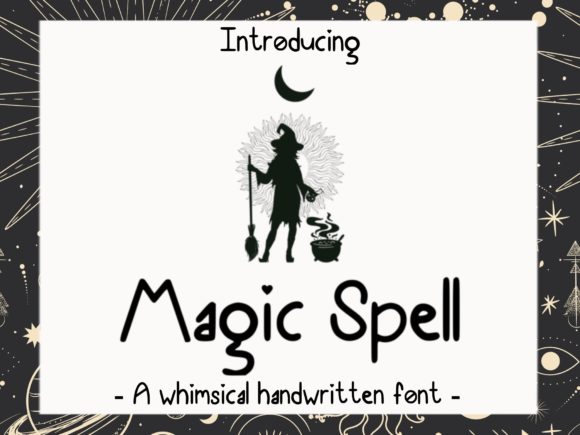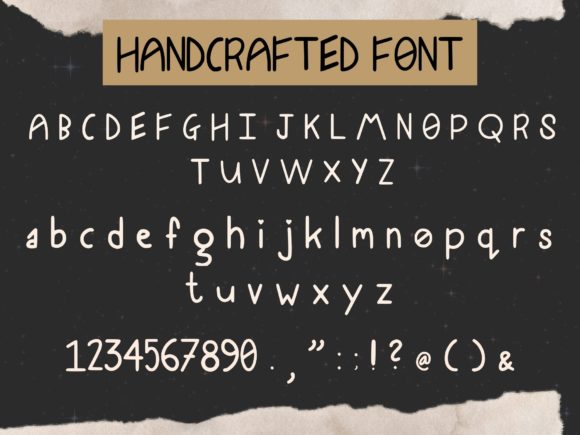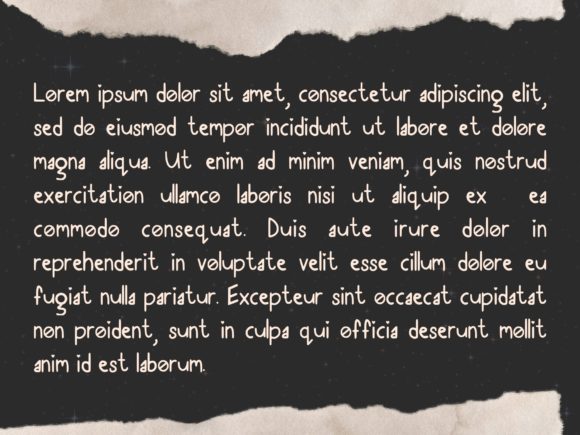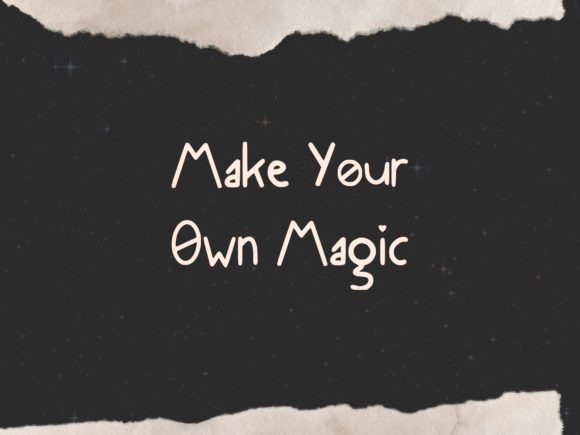
Magical Spell Font
About Magical Spell Font
Magical Spell font casts a spell of enchantment with its captivating script font, infusing every project with a touch of whimsy and charm. Crafted with meticulous care and attention to detail, this font is a versatile addition to any designer’s toolkit, capable of transforming ordinary creations into extraordinary works of art.
At the heart of Magical Spell font lies its mesmerizing script style, characterized by graceful curves and flowing lines. Each letter is imbued with a sense of magic and wonder, inviting viewers into a world of imagination and creativity. From branding and advertising to invitations and social media graphics, this font has the power to captivate audiences and leave a lasting impression.
One of the most enchanting aspects of Magical Spell font is its ability to evoke a sense of playfulness and joy. Its whimsical script style adds a touch of personality to any project, infusing it with a sense of wonder and delight. Whether used for a children’s book, a themed event, or a playful logo, this font brings a sense of magic to every design it touches.
In branding and marketing endeavors, Magical Spell font shines as a beacon of creativity and originality. Its captivating script style adds a unique flair to logos, packaging, and promotional materials, helping brands stand out in a crowded marketplace and leaving a lasting impression on consumers.
For special events such as birthday parties or themed celebrations, Magical Spell font adds an extra layer of charm to invitations, banners, and decorations. Its whimsical aesthetic sets the perfect tone for a memorable occasion, creating a sense of excitement and anticipation among guests.
In digital media, Magical Spell font stands out as a versatile and eye-catching choice for social media graphics, website design, and digital advertising. Its playful script style adds personality and charm to digital content, making it more engaging and memorable for viewers.
Overall, Magical Spell font is a valuable asset for designers seeking to infuse their projects with creativity and imagination. With its captivating script style, whimsical charm, and remarkable versatility, it has the power to transform any creation into something truly magical and unforgettable. Whether used for professional projects or personal endeavors, this font is sure to leave a lasting impression on audiences of all ages.